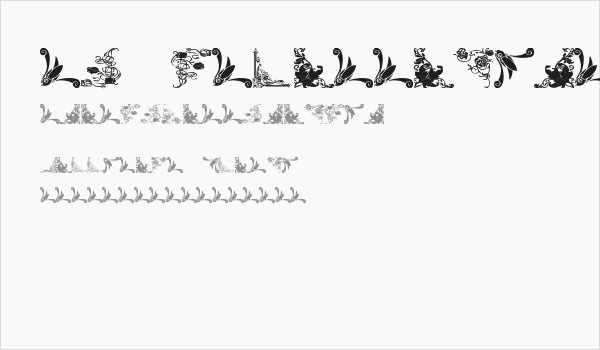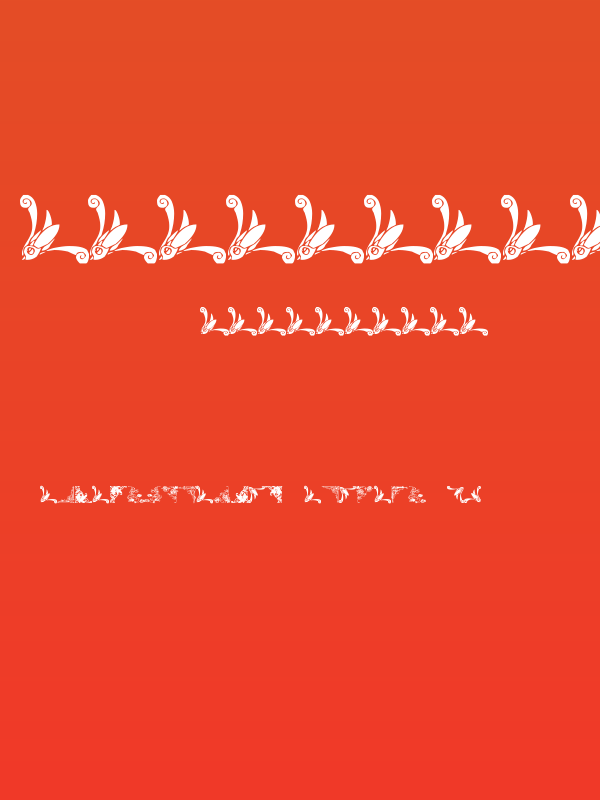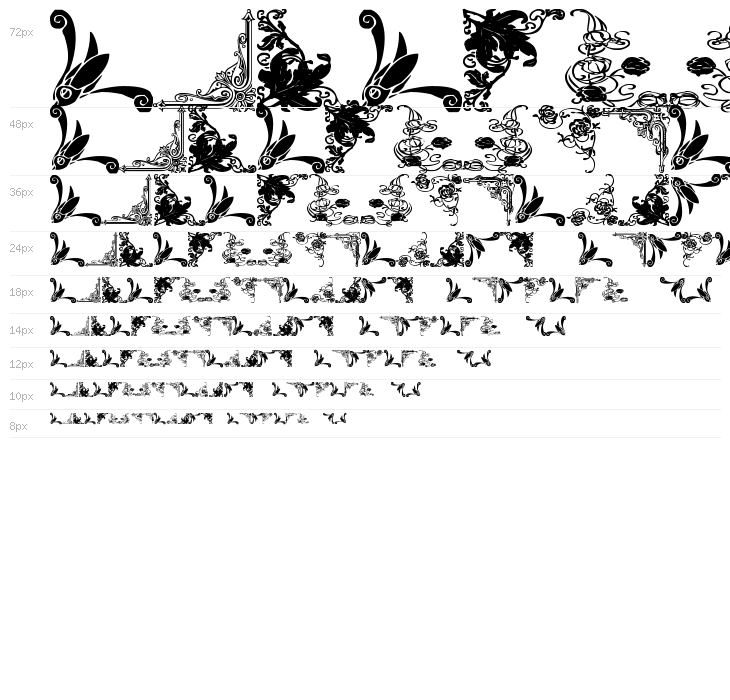
Vintage Decorative Corners 14 Font
Vintage Decorative Corners 14 Description
Highly decorative and ornate set of corner and border elements featuring intricate floral and scroll motifs, reminiscent of vintage or Victorian design. The elements are bold, with high contrast between thick and thin lines, and are intended more for embellishment than for text readability.
| Overall Style | Vintage, Decorative |
| Use Case | Borders, Frames, Decorative accents |
| Proposed Projects | Invitations, certificates, book covers, decorative frames, vintage-themed posters, scrapbooking. |